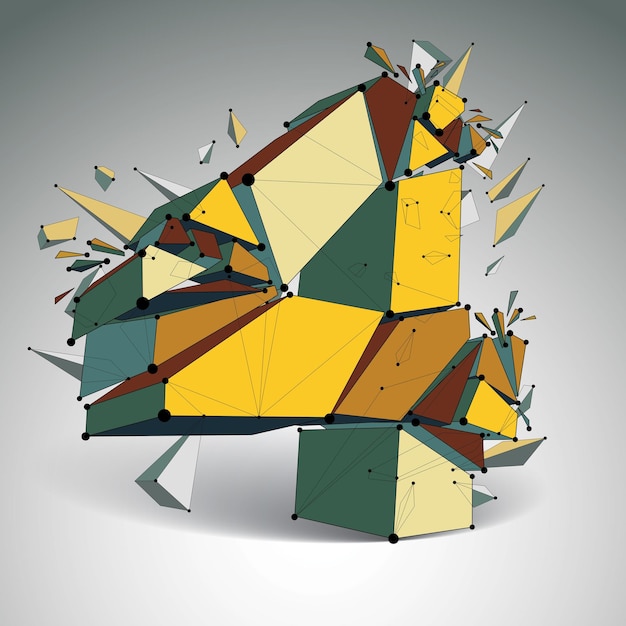
Perspective technology demolished red number 4 with black lines and dots connected, polygonal wireframe font. Explosion effect, abstract faceted element cracked into multiple fragments.